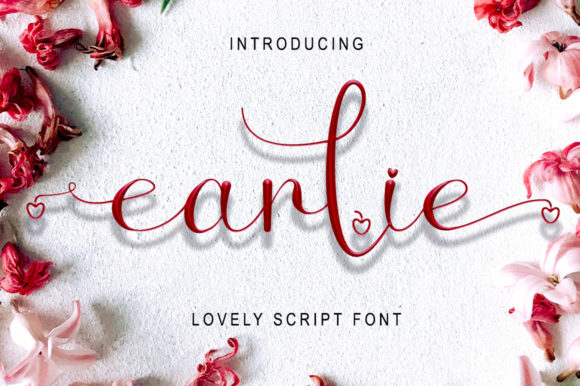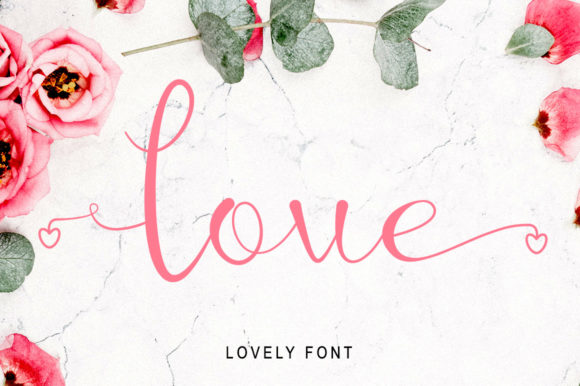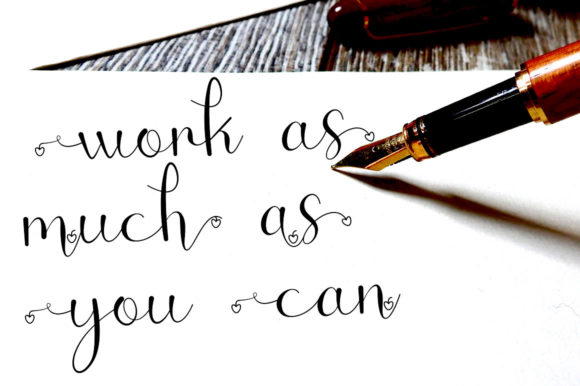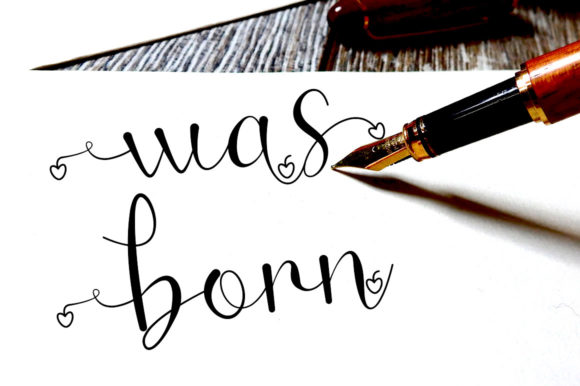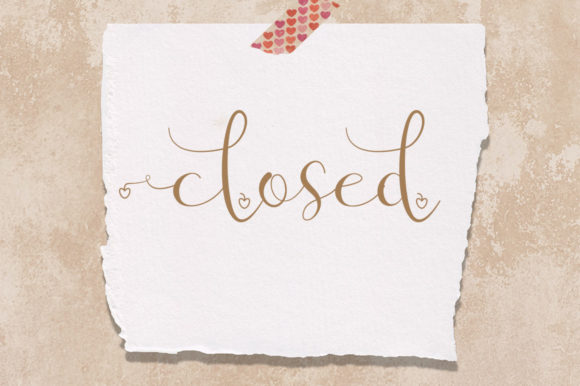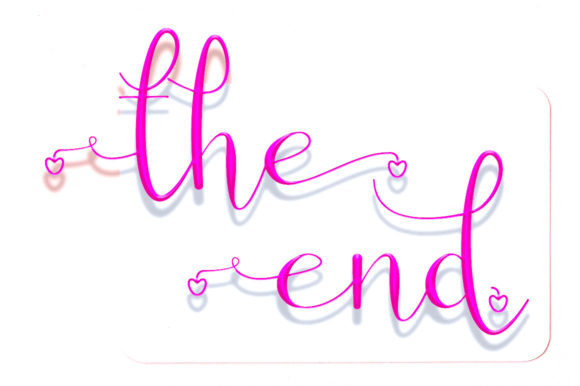
Earlie Font
About Earlie Font
Earlie is a thin lettered and graceful script font. Fall for its personable style and use it to create lovely designs. This font is PUA encoded which means you can access all glyphs and swashes with ease!